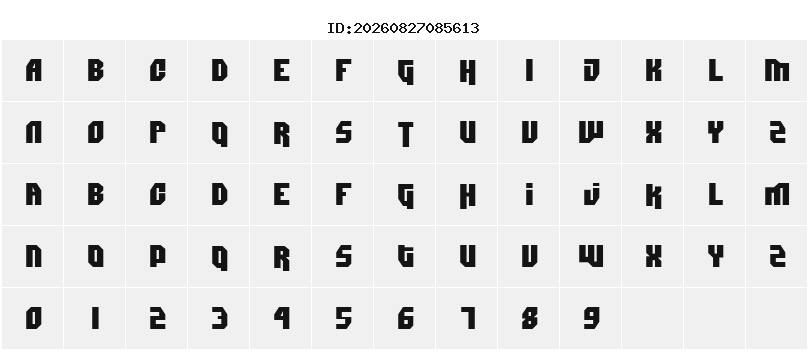
3代呼吸英文-大方角 Preview
• Font Name: 3代呼吸英文-大方角
• Full Font Name: 3代呼吸英文-大方角
About 3代呼吸英文-大方角.ttf
3代呼吸英文-大方角.ttf is a modern, elegant sans-serif font designed for ultimate readability and visual harmony. Perfect for branding, headlines, web design, and print materials.